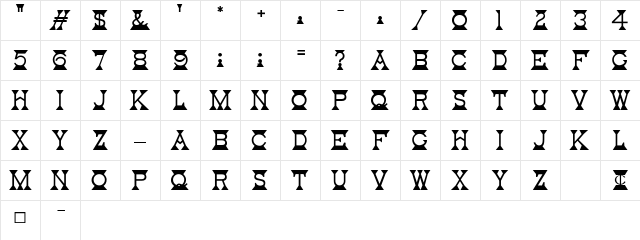
Mantel Regular
Design Context for Mantel Typeface
Mantel is a composed and adaptable typeface that performs quietly and consistently across a wide range of design contexts.